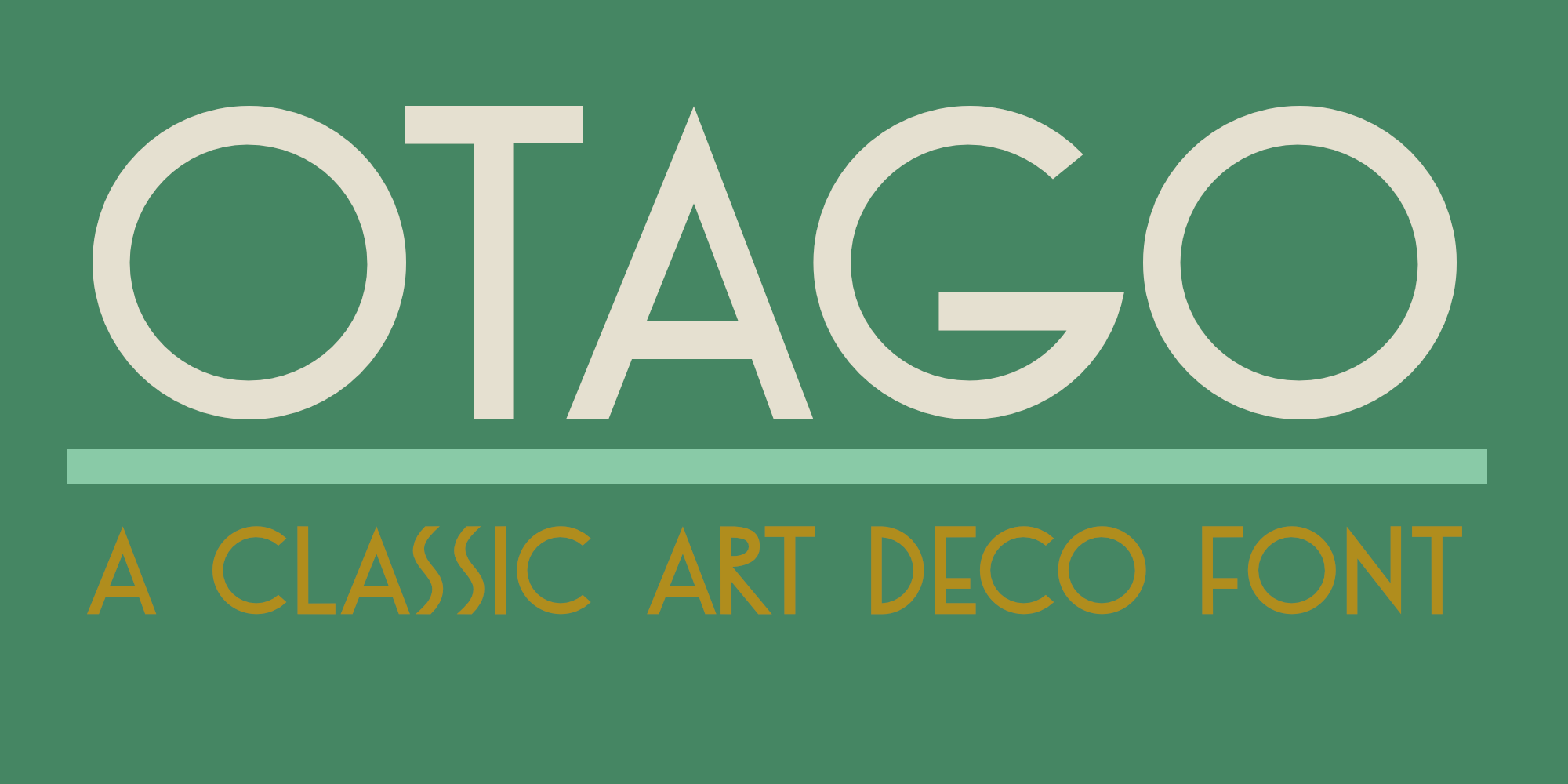
Otago
Otago is a classic all caps Art Deco font. Clean, crisp and very, very legible. I took my inspiration for this font from a 1920’s postcard. Otago comes with a bagful of diacritics.